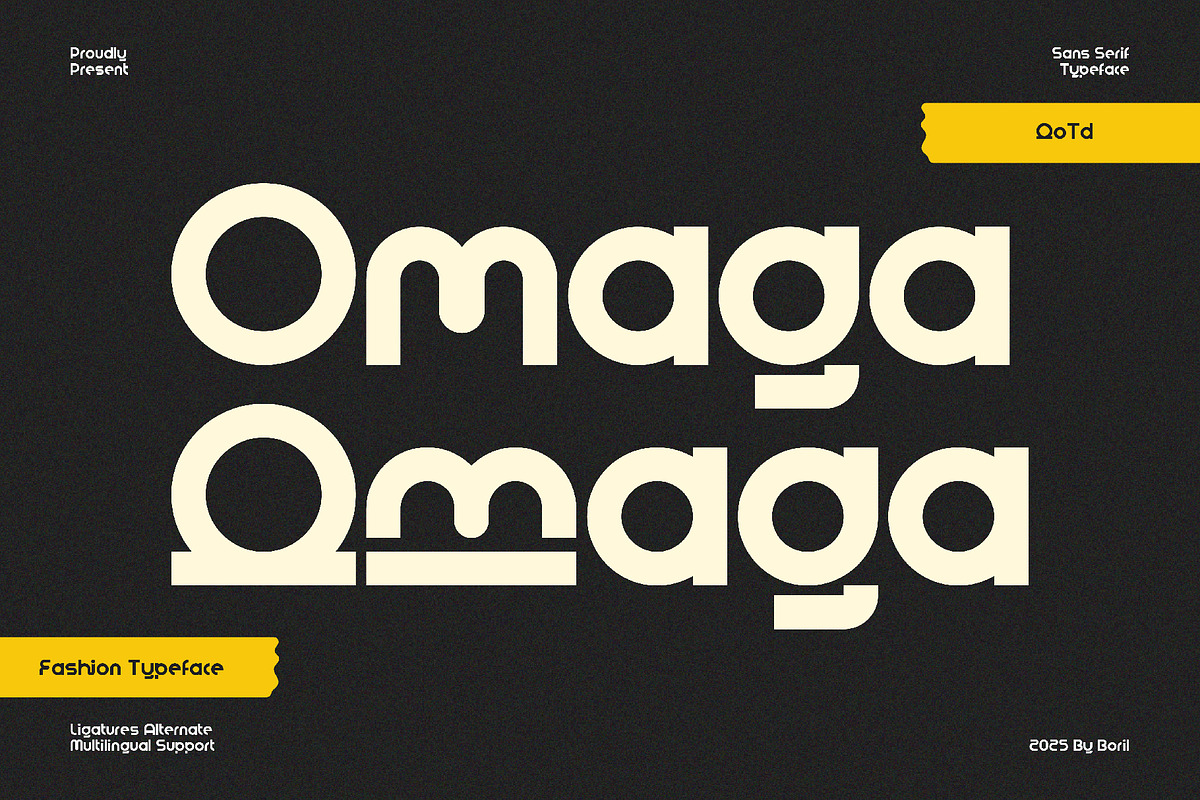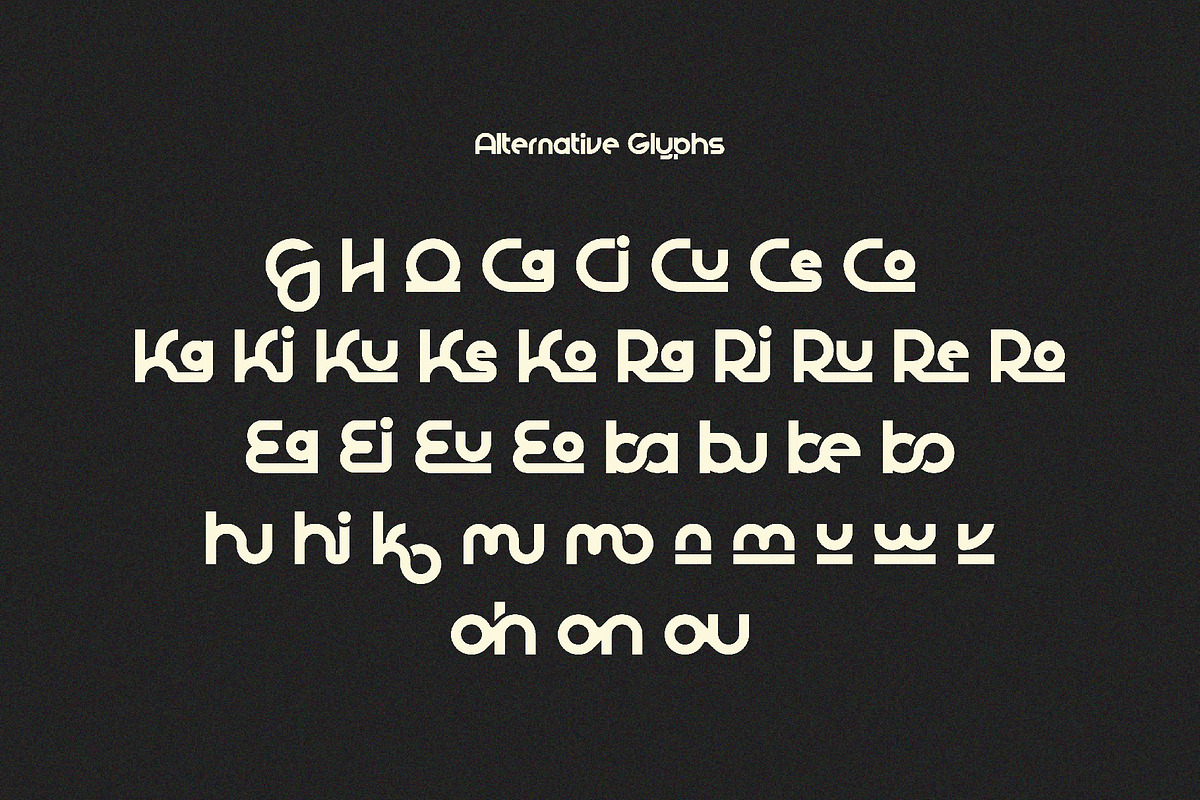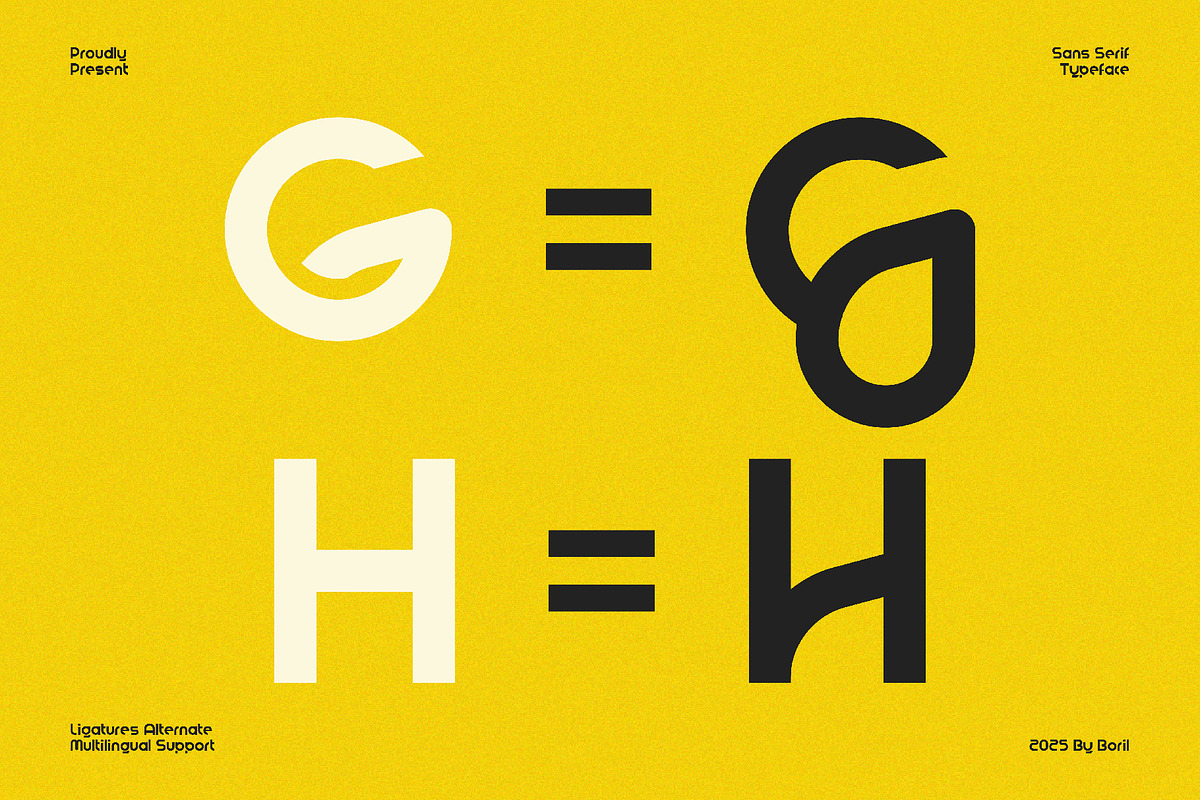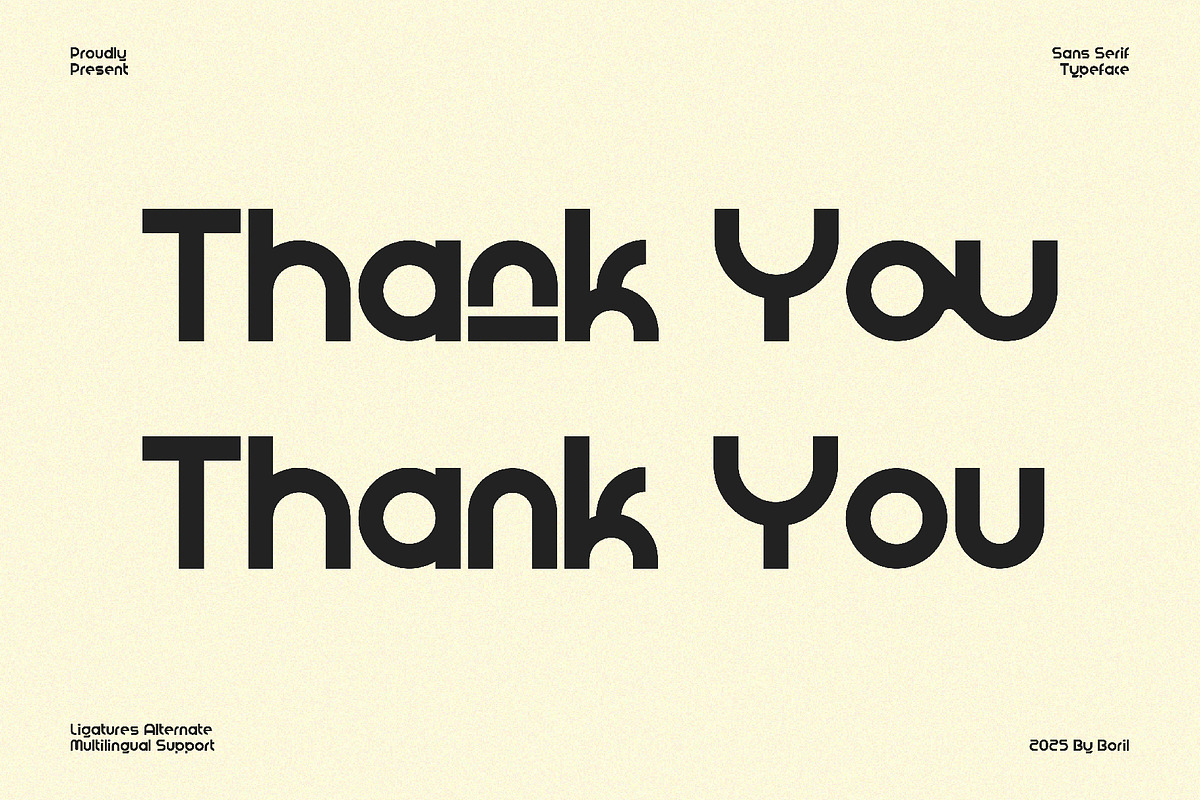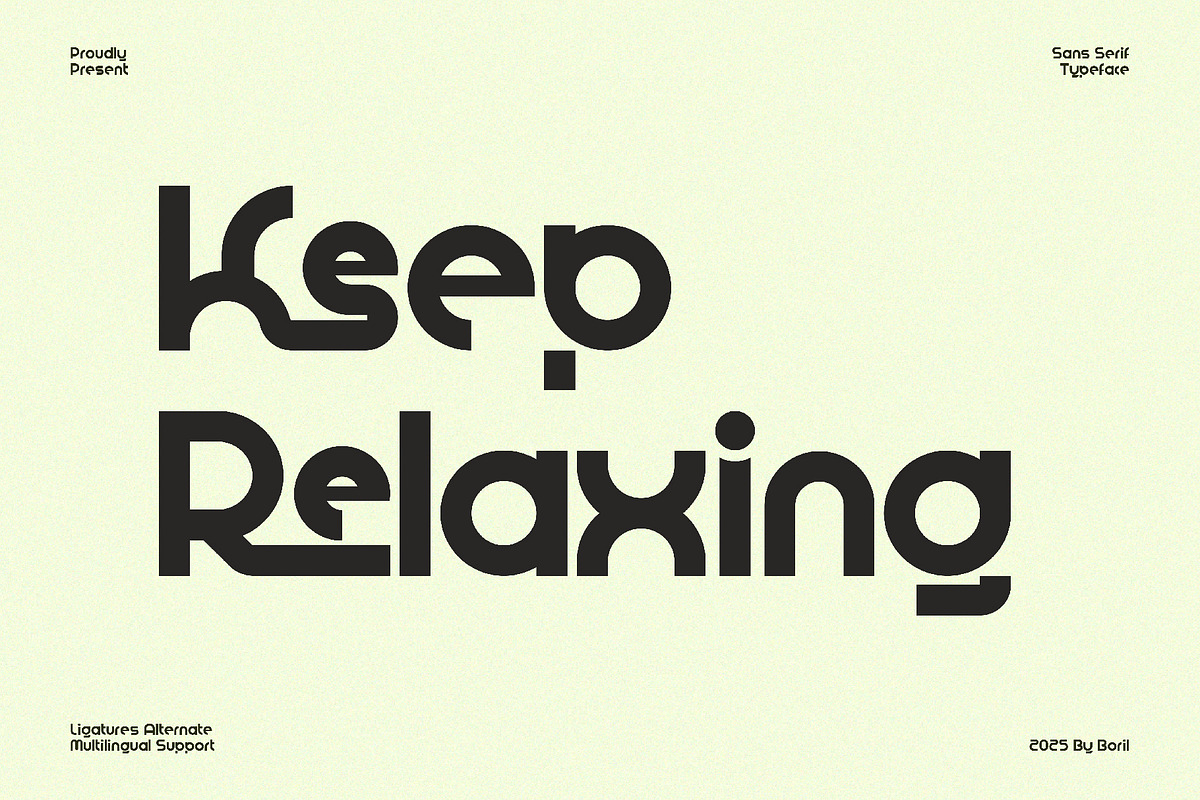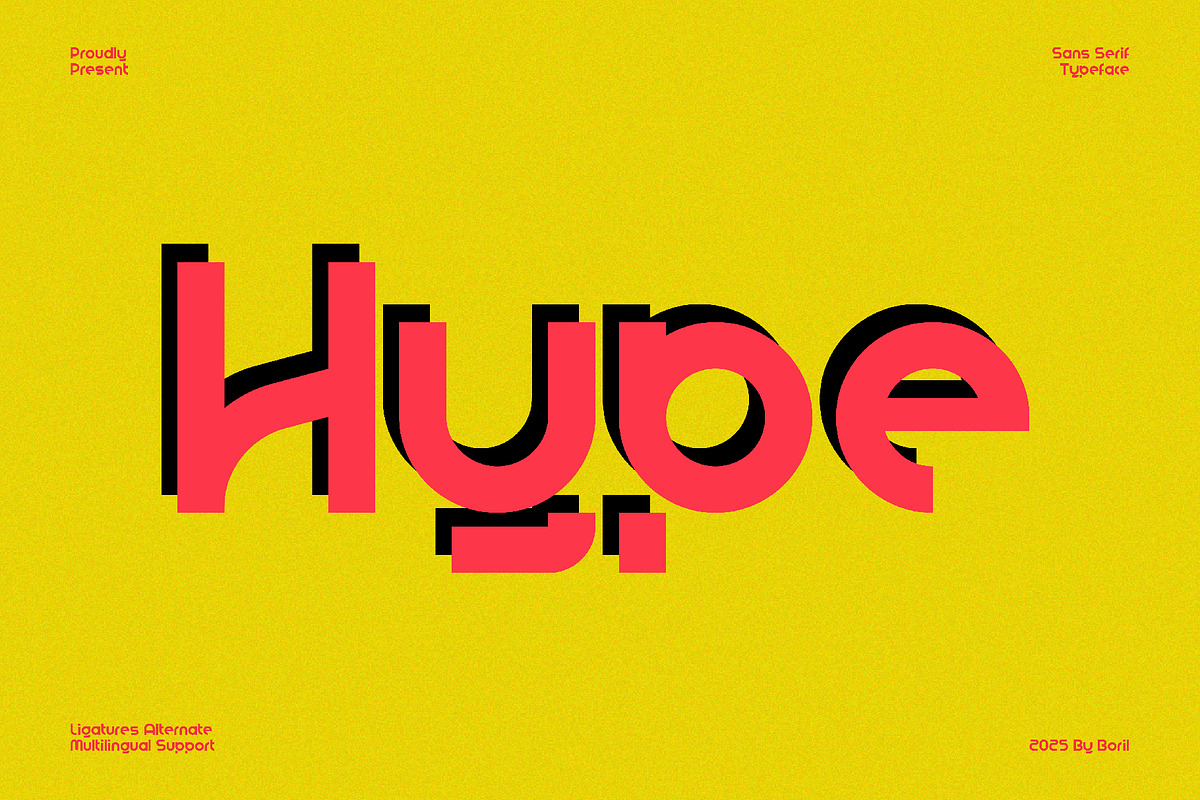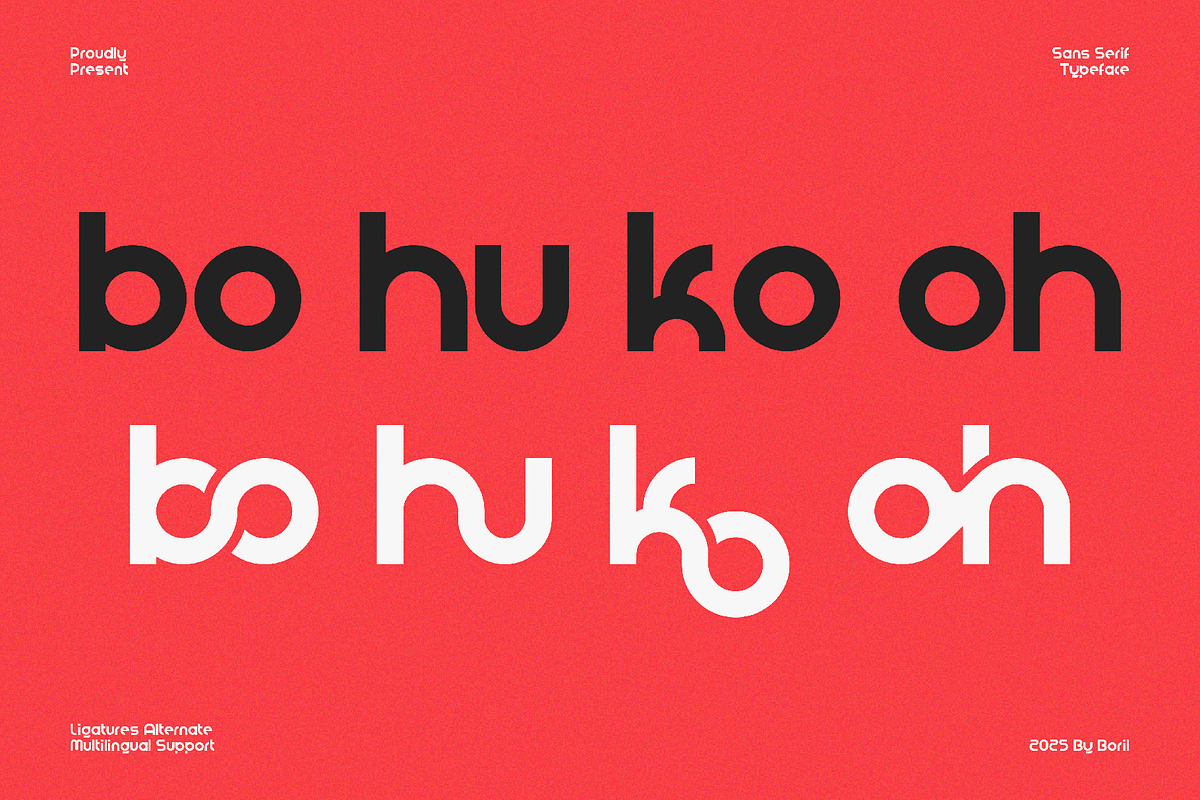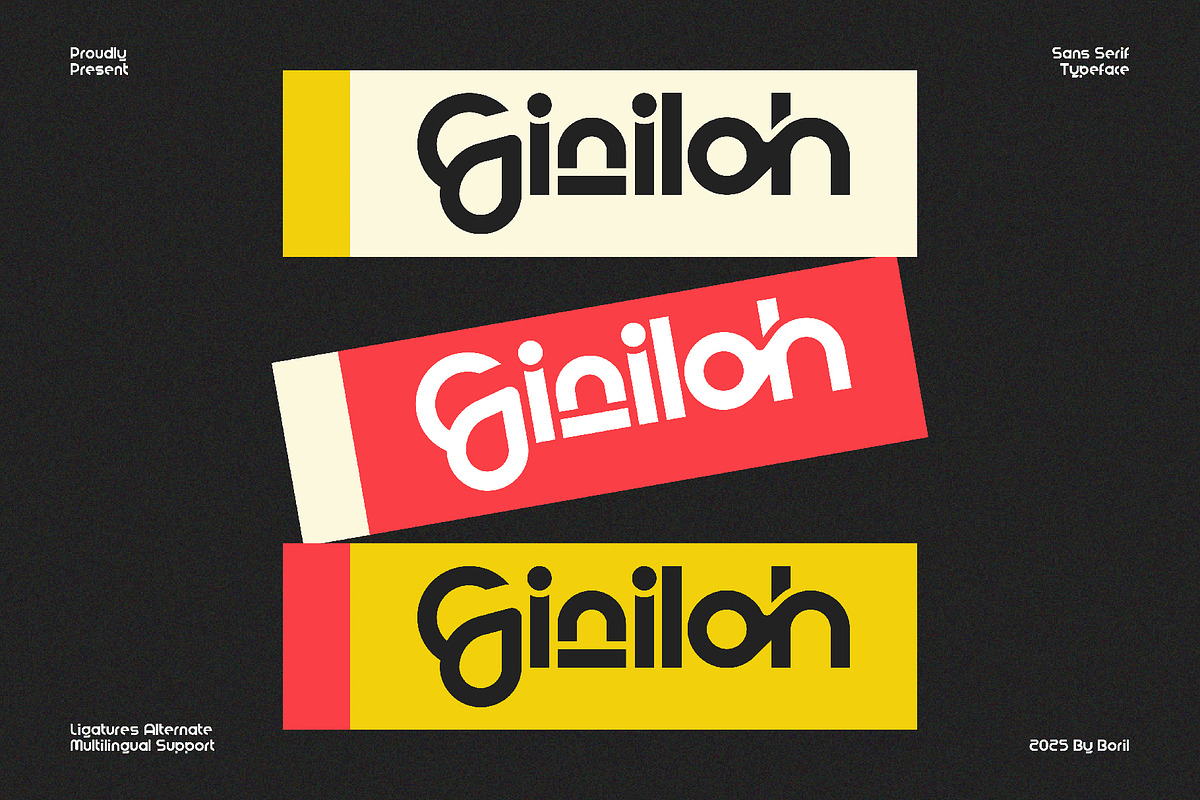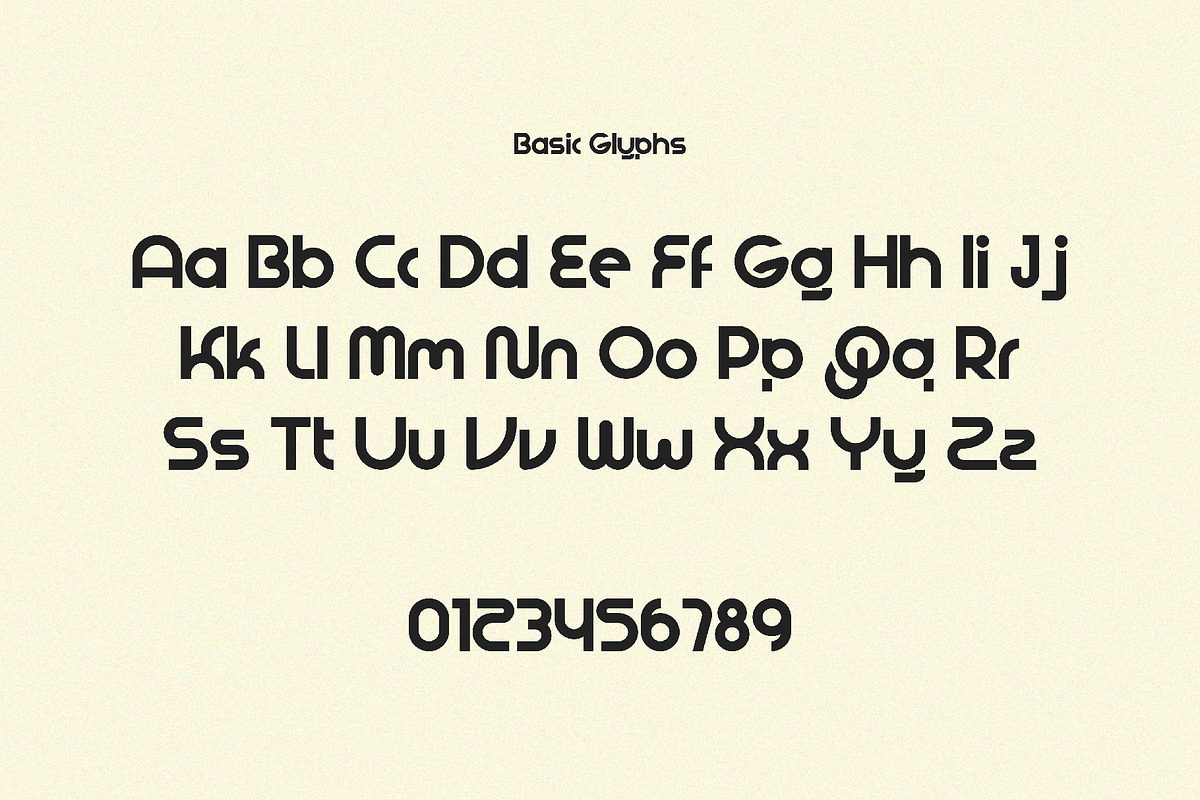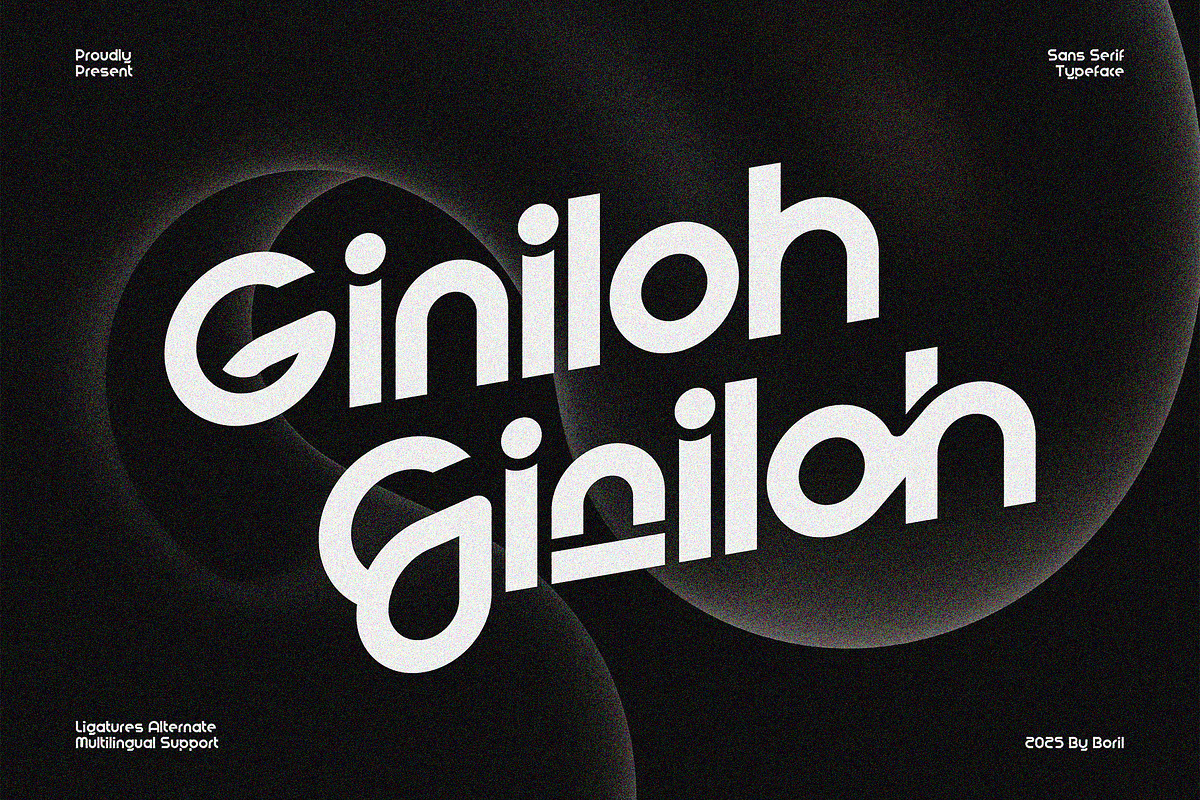
Giniloh - Unique Modern Sans
The Giniloh font has rounded corners on almost all letters, giving a friendly and modern impression. The line thickness is almost the same throughout the letters, suitable for casual designs, or brands that want to appear friendly. Available in uppercase and lowercase, several ligatures, and multilingual alternates.